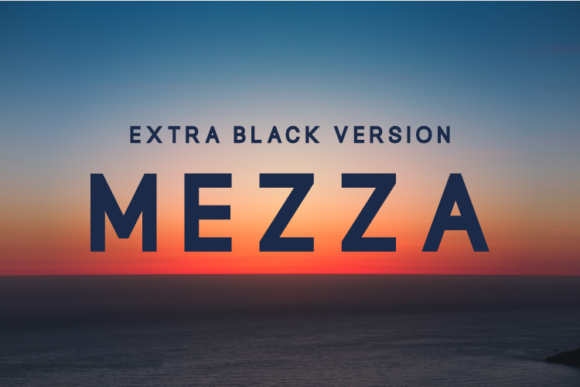
Indulge in the captivating beauty of Mezza Extra Black, an all-caps sans serif font that dances across the digital canvas with impeccable grace and timeless elegance. Its minimalist charm invites you to explore a world of creative possibilities, where your designs bloom into masterpieces.
Whether you're crafting the perfect magazine layout or envisioning bespoke invitations, Mezza Extra Black transforms your words into works of art. Its crisp, clean lines exude a sense of sophistication, while its inherent versatility lends itself to a symphony of design styles.
Picture your headlines commanding attention with the bold strokes of Mezza Extra Black, captivating your audience with its timeless allure. Witness your invitations adorned with an air of elegance, inviting guests to a soirée they'll never forget.
As you navigate the realm of web design, Mezza Extra Black emerges as your faithful companion, lending its striking presence to headers and website elements. Let your website radiate with a touch of sophistication and visual appeal that sets it apart from the ordinary.
And for those moments when your creative spirit yearns to soar beyond the confines of traditional design, Mezza Extra Black stands ready to elevate your artwork to new heights. Its versatility knows no bounds, allowing you to experiment with scale and bring your artistic visions to life on a grand canvas.
Embrace Mezza Extra Black, the font that sparks creativity, ignites imagination, and empowers you to create designs that leave an indelible mark on the hearts and minds of your audience.